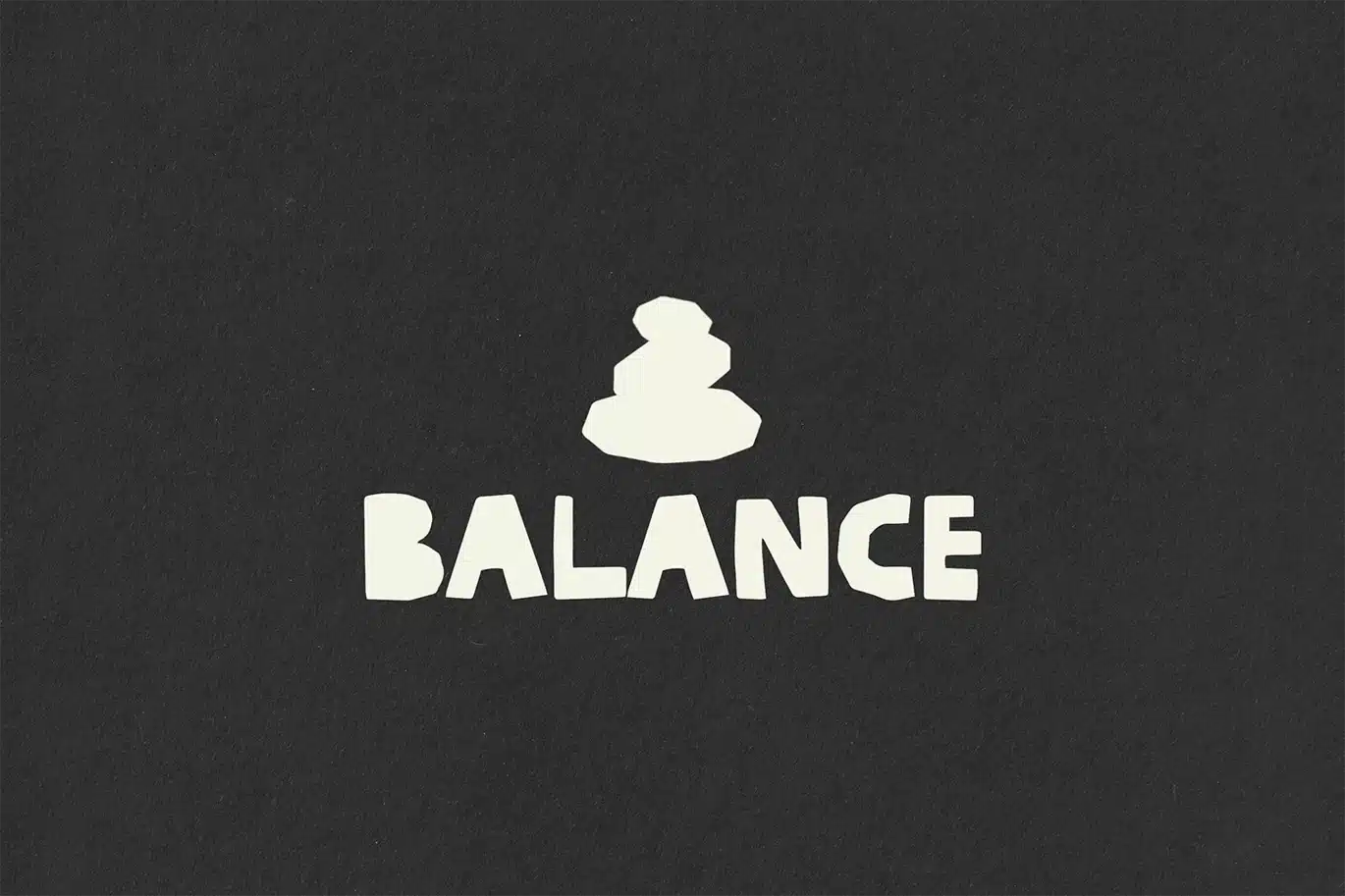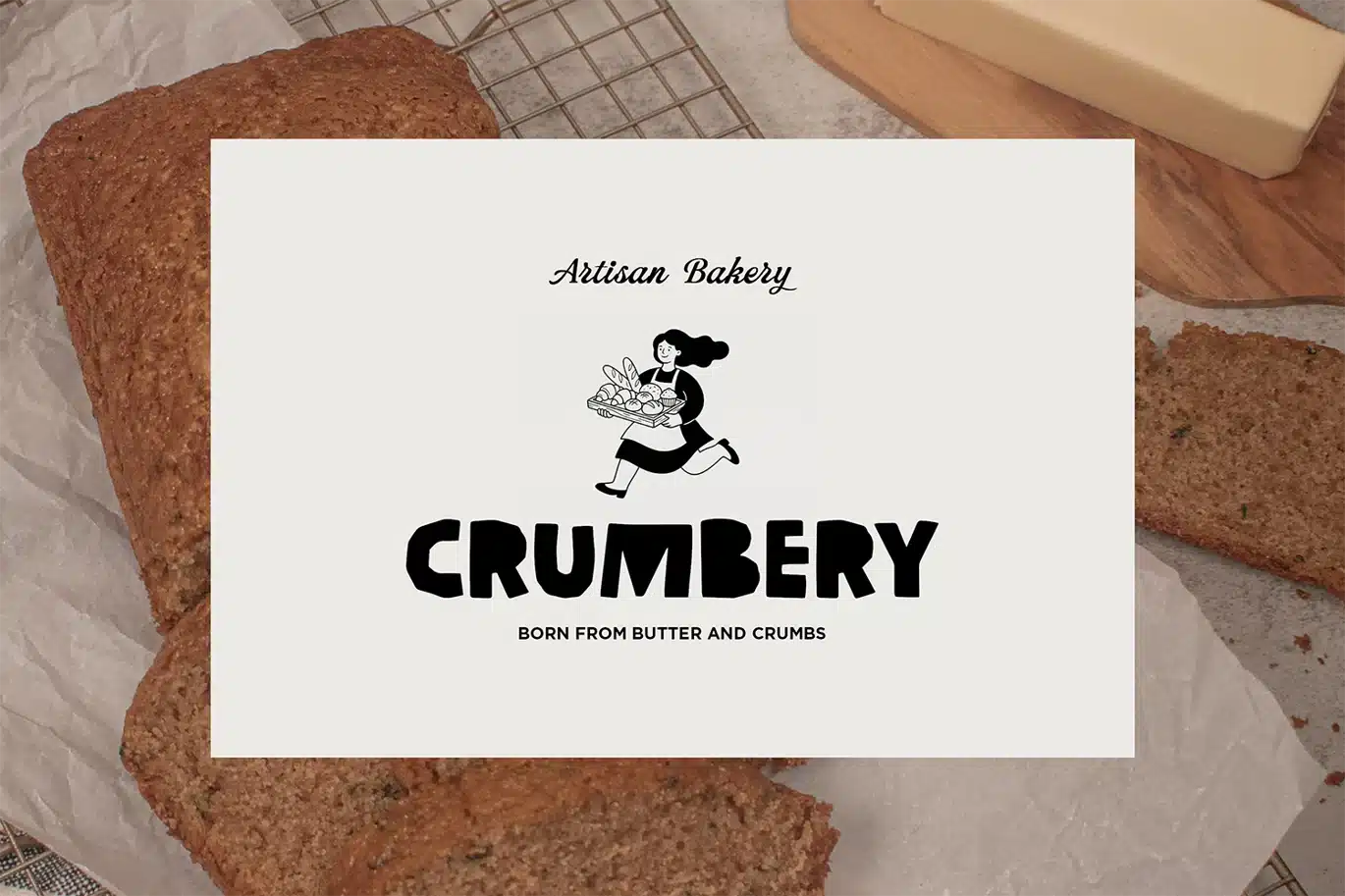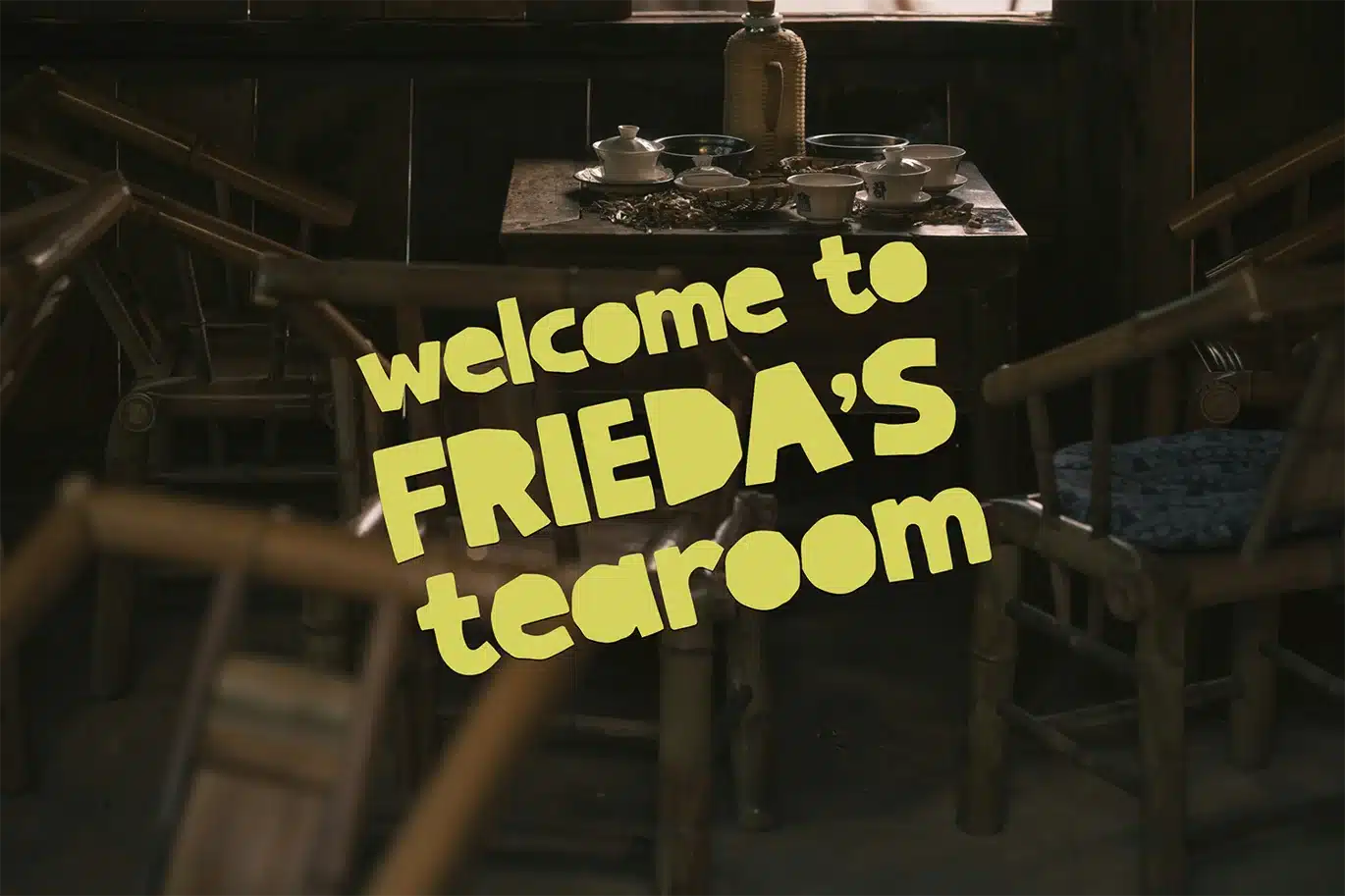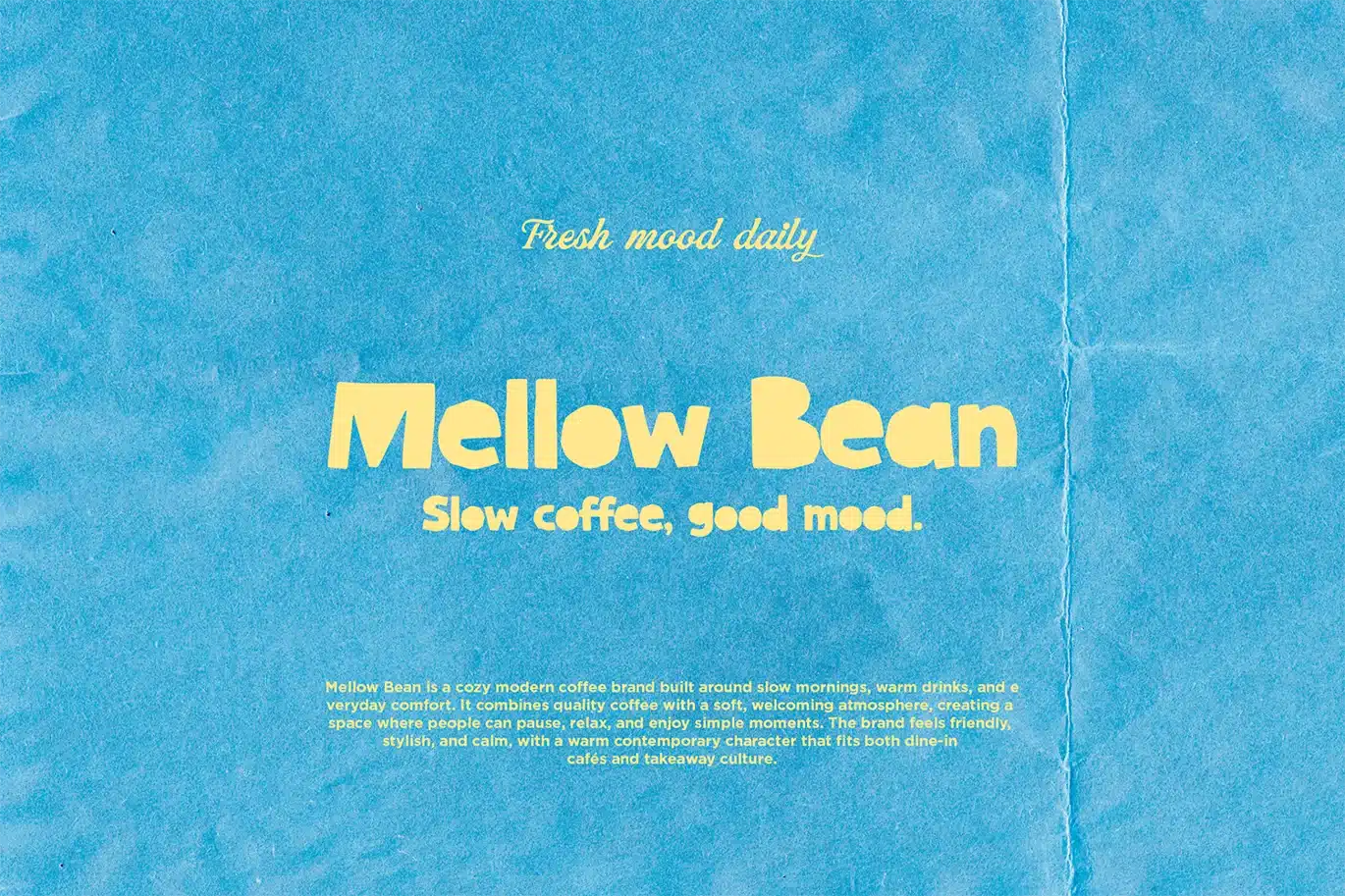
Jumble Font is a bold playful display typeface with a handmade imperfect cutout look. Each letter has its own quirky shape, giving your designs a fun, raw, and expressive personality.
Perfect for logos, branding, posters, packaging, headlines, social media graphics, kids designs, and creative projects that need a chunky irregular handcrafted feel.